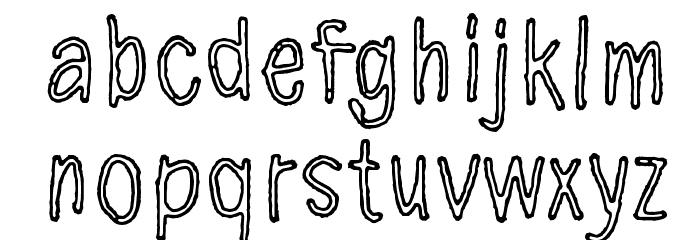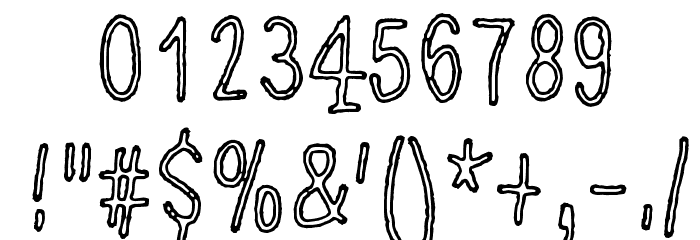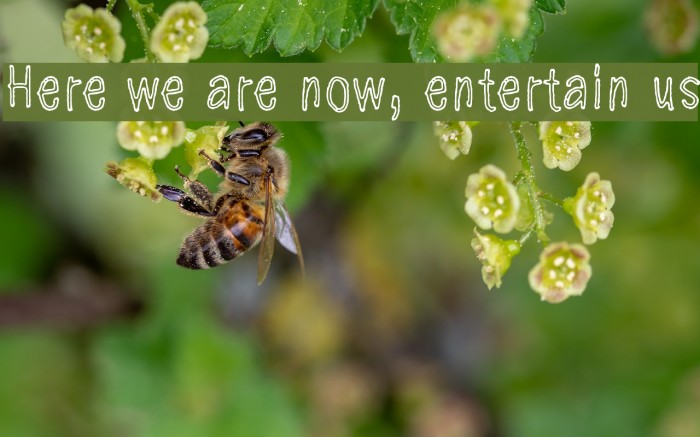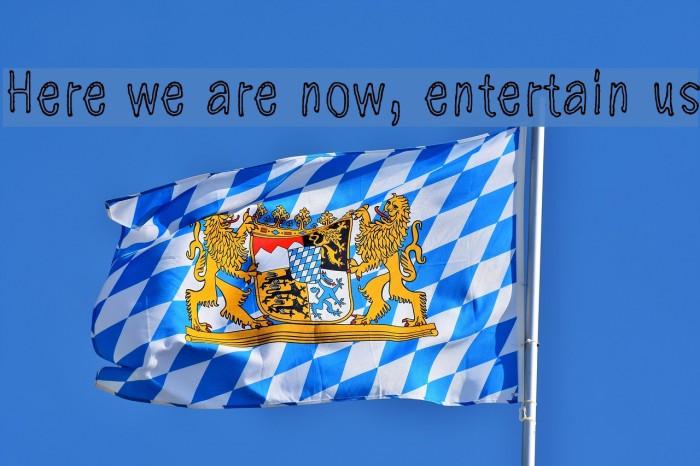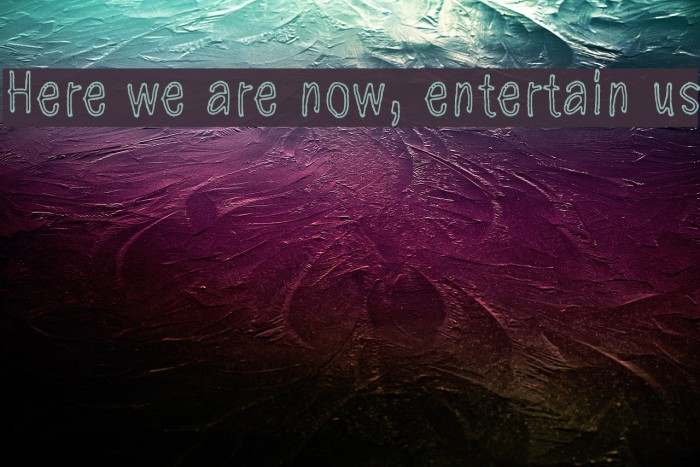
Here we are now, entertain us Font
This font features a playful, hand-drawn style with a casual, informal appearance. The letters are slightly irregular, giving them a whimsical and artistic feel. The strokes are consistent in width, creating a uniform look across all characters. The font includes both uppercase and lowercase letters, numerals, and a variety of special characters. Its organic and approachable design makes it suitable for creative projects that require a personal touch.
A playful, hand-drawn font with a casual and artistic style.
- Proposed Projects: Ideal for children's books, greeting cards, posters, and DIY projects.
- Category: Handwritten
- Overall Style: Casual
- Use Case: Headlines, Creative projects, Informal designs